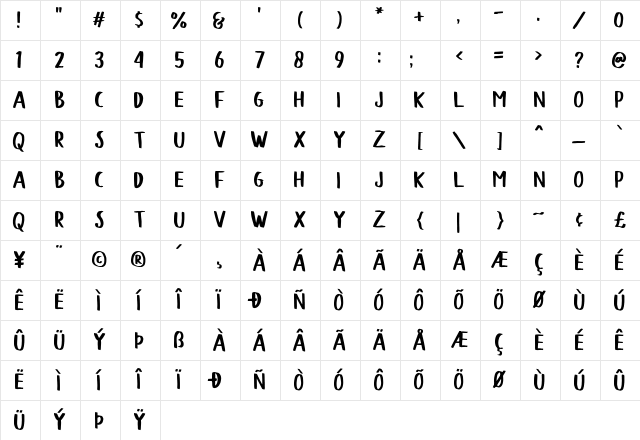
Blodders Regular
Foundry: Letterhend Studio
Designer: Letterhend Studio
Design Context for Blodders
Blodders is a composed and adaptable typeface that performs quietly and consistently across a wide range of design contexts.